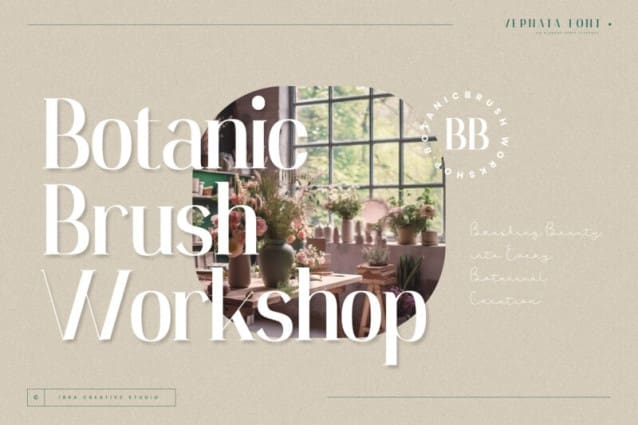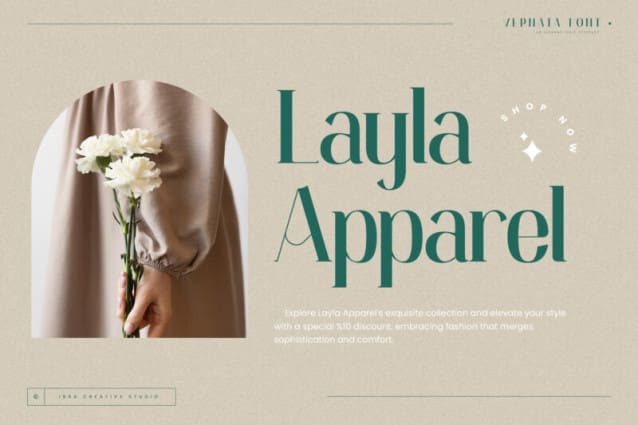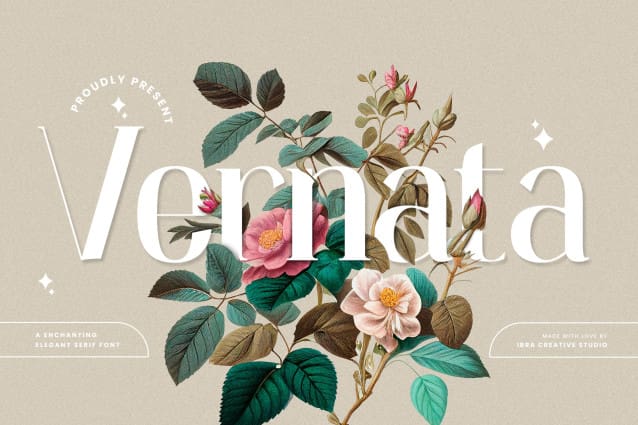
Vernata Font
Vernata Font, an enchanting and elegant serif font, captivates with its timeless sophistication and refined charm. Each letter is meticulously crafted, embodying a perfect balance of curves and straight lines that exude a sense of grace and luxury. The delicate serifs add a touch of classic flair, while the overall design maintains a modern sensibility. The spacing and proportions of Vernata Font are expertly calibrated, ensuring readability and an effortless flow of text. Whether used for invitations, branding, or editorial design, Vernata brings a magical allure to any project, seamlessly blending tradition with contemporary aesthetics.